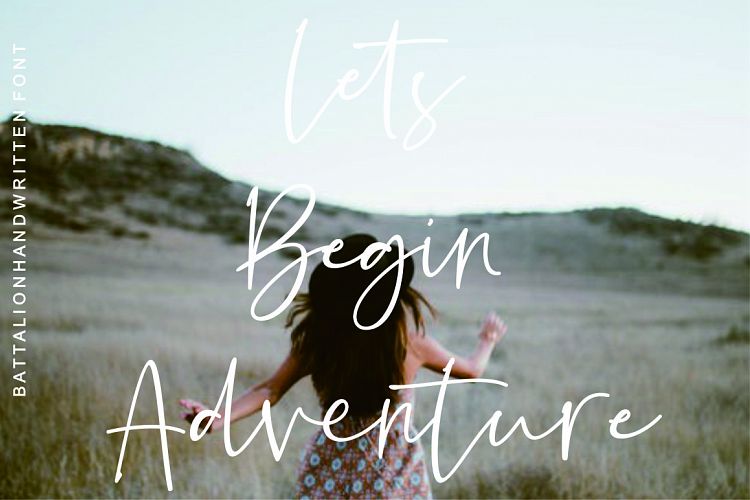
Battalion Handwritten Font
This is a handwitten script with a new beautiful stylish, a perfection style of the letters you want to use, modern handwriting with many alternatives. It’s smart and in line with your wishes! Say hello to the Battalion Font! It is designed and shared by fikryal. Battalion Handwritten Font is a handwritten font that is perfect for your needs. very suitable for your various needs, such as: logo, branding, quotes, magazine, packaging products, signatures, banners, posters and others. Battalion has many ligature and alternate as well as multilingual support, such as languages: French, Spanish, German, and others.